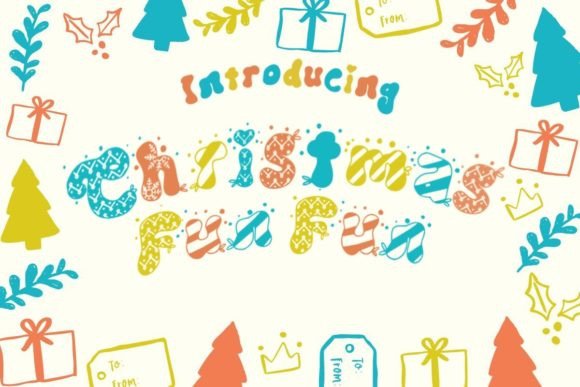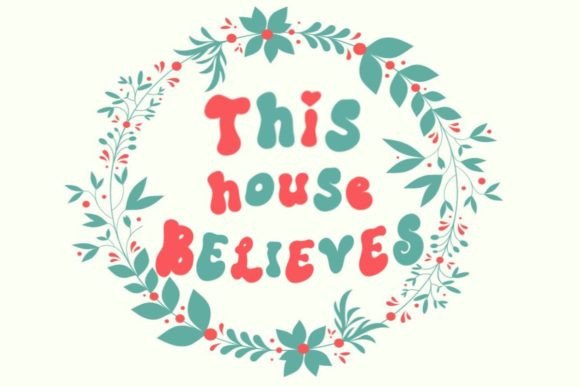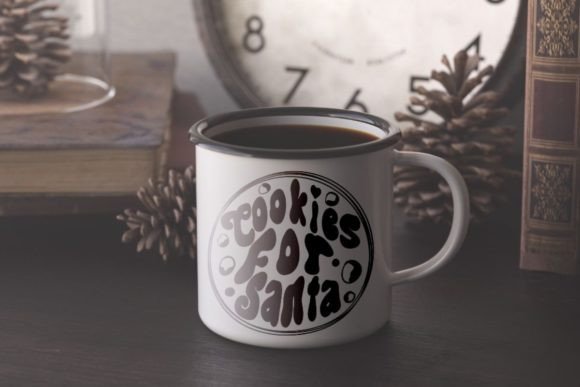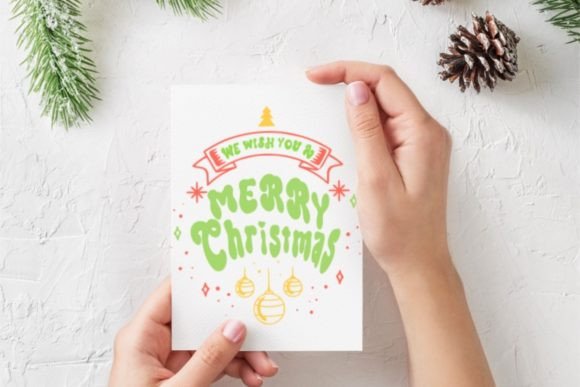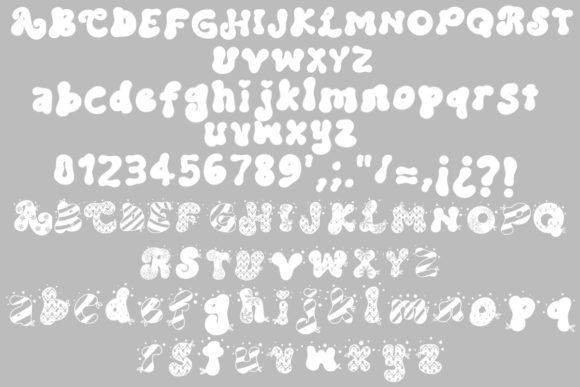
Introduction to Christmas Fun Duo Font
As the snowflakes start to fall and the twinkling lights adorn the streets, designers begin to think about the festive projects that bring joy to their clients and friends. Have you ever been stuck on finding the perfect font to capture the essence of Christmas, only to be met with a sea of generic options? That’s where the Christmas Fun Duo Font comes in – a delightful display and decorative font duo that will add a dash of cheer to your winter designs.
Whether you’re working on a holiday card, a festive advertisement, or a creative project for a client, the Christmas Fun Duo Font is a valuable addition to your design toolkit. Its playful and festive vibe is sure to bring a smile to your face and delight your audience.
Key Features of Christmas Fun Duo Font
- High-quality design with transparent background, ideal for creative projects.
- Comes in a duo format, perfect for pairing with other fonts for unique and festive designs.
- Size: scalable to suit any design project, from small to large-scale creative endeavors.
- Resolution: suitable for print and digital applications, including web design and social media graphics.
- Unique characteristics include bold, playful, and whimsical elements, adding a touch of festive fun to any design project.
Honest Review: Christmas Fun Duo Font
I recently had the chance to work with the Christmas Fun Duo Font, and I must say it’s a great addition to any design resource library. The font is free to download, which is always a plus for designers on a budget. One of the standout features is the transparent background, making it easy to layer over other design elements.
- ✨ High-quality design: The font is well-designed and looks great on a variety of backgrounds.
- ✨ Versatile: The Christmas Fun Duo Font is perfect for a range of creative projects, from holiday cards to social media graphics.
- ✨ Easy to use: The font is straightforward to apply to any design project, making it a great resource for designers of all skill levels.
- ⚠️ Limited character set: The font only includes a limited number of characters, which may not be suitable for longer pieces of text.
- ⚠️ Not ideal for small text: The font is best used for larger text sizes, as it can become difficult to read when scaled down.
Overall, I was impressed with the Christmas Fun Duo Font and would recommend it to anyone looking for a high-quality, free design resource. Just be aware of its limitations and use it accordingly.
Use the Christmas Fun Duo Font in combination with other festive graphics and designs to create a cohesive look. Experiment with different font sizes, colors, and styles to add depth and interest to your designs.
The Christmas Fun Duo Font is perfect for creating festive designs for holiday cards, invitations, and social media graphics. It’s also great for adding a festive touch to your presentations, documents, and websites.